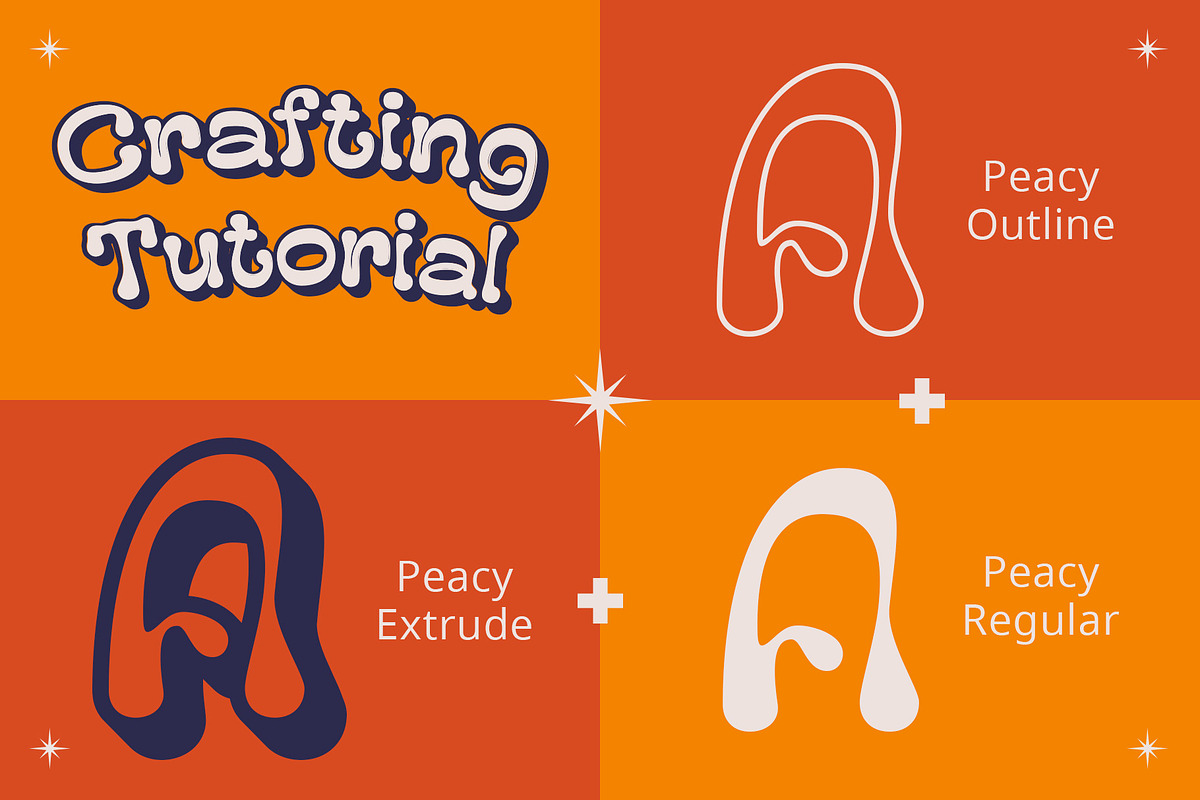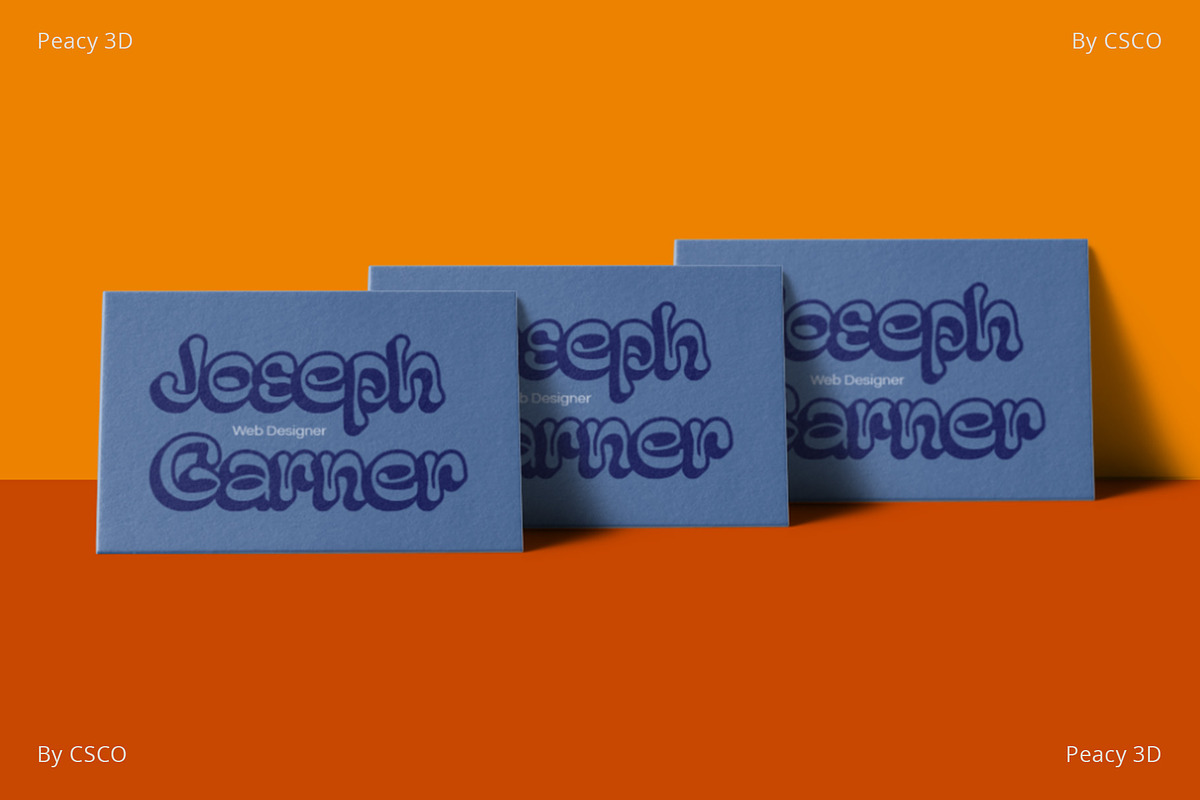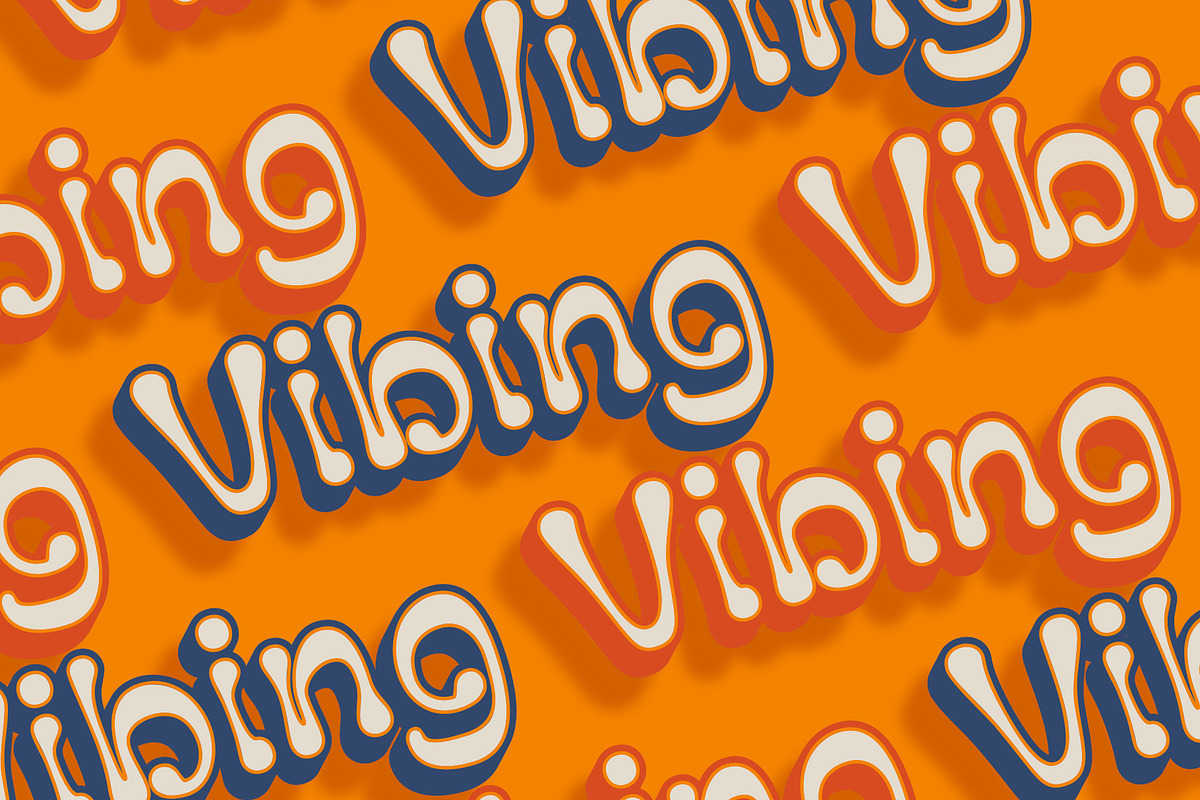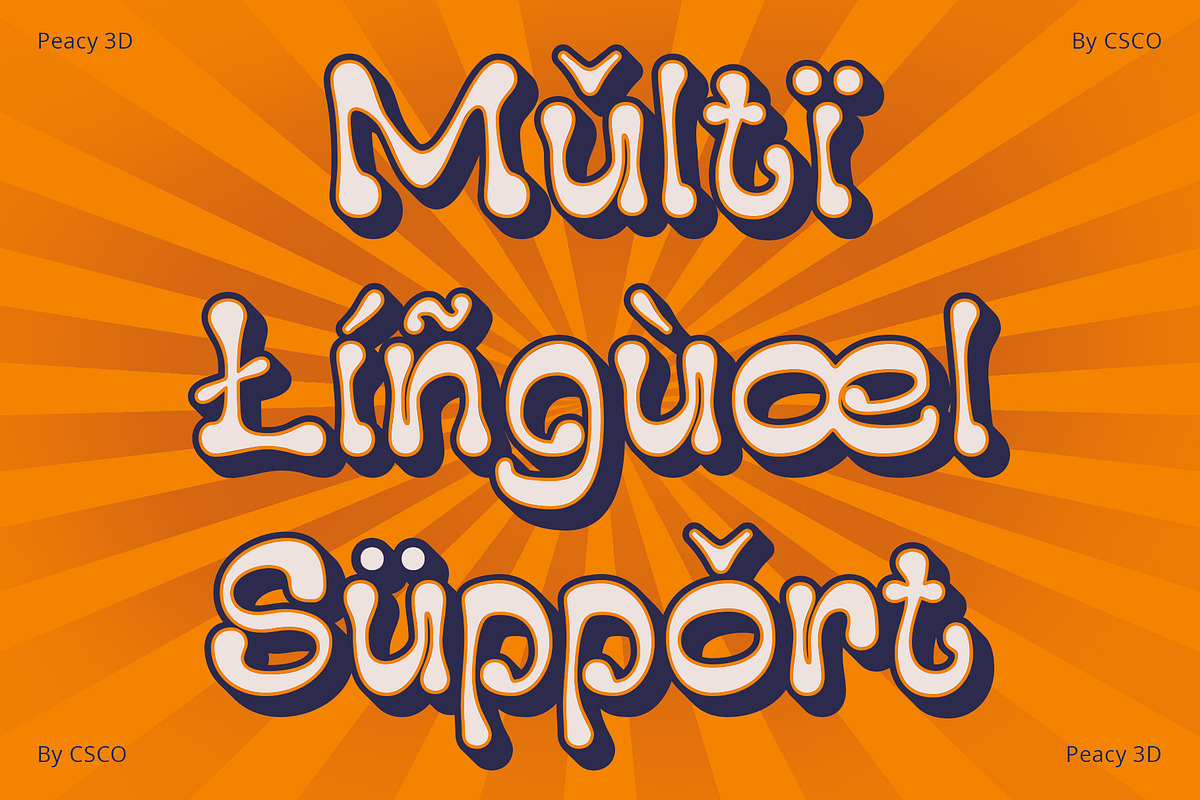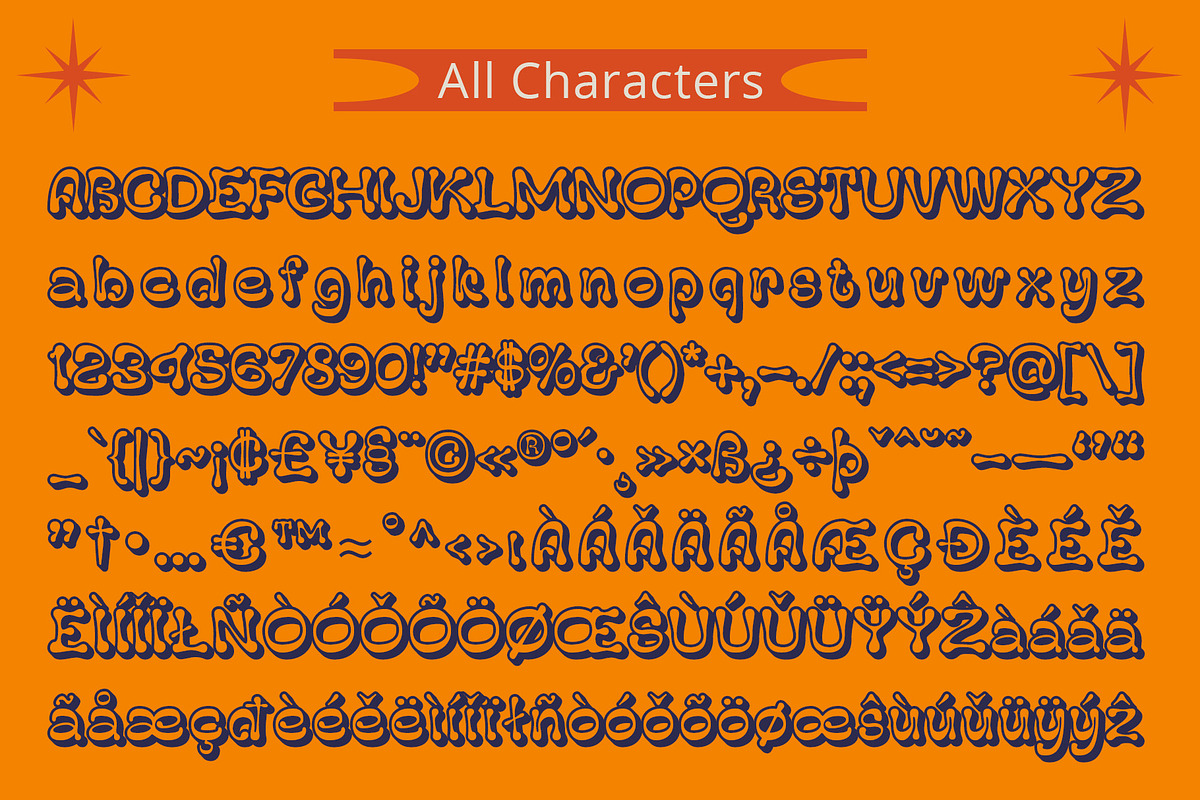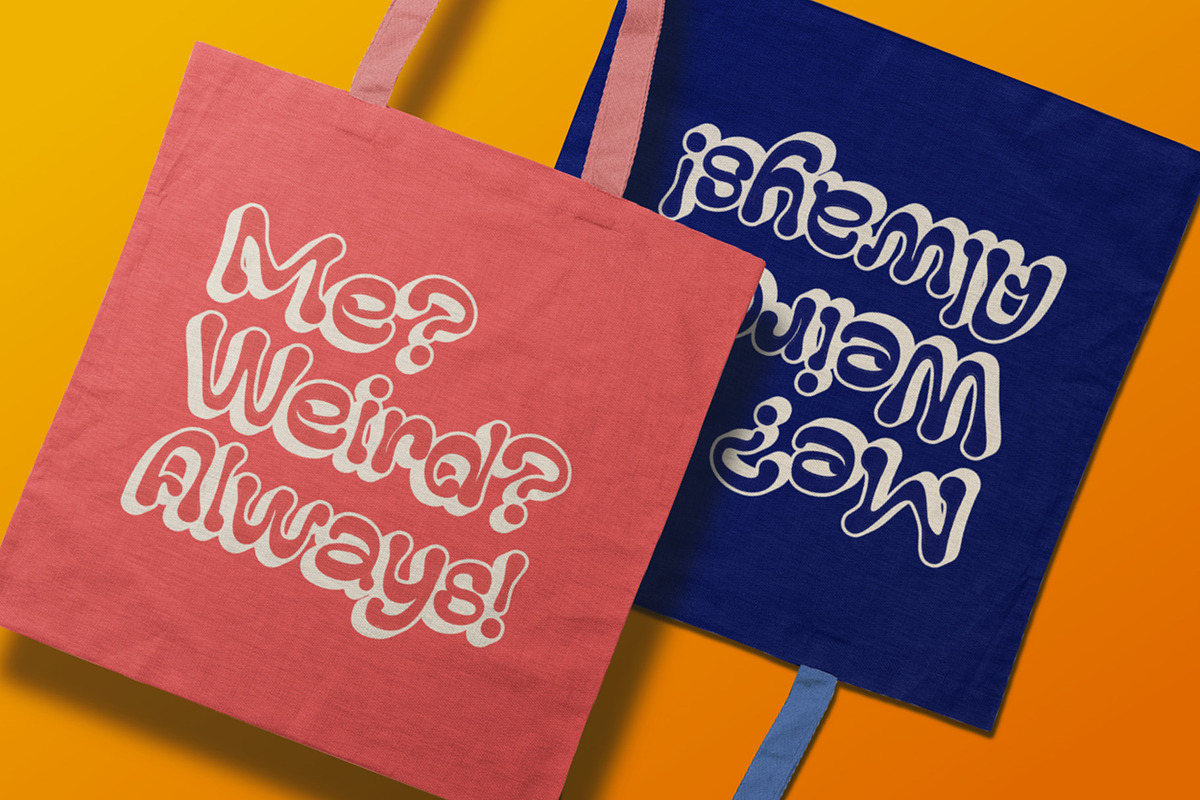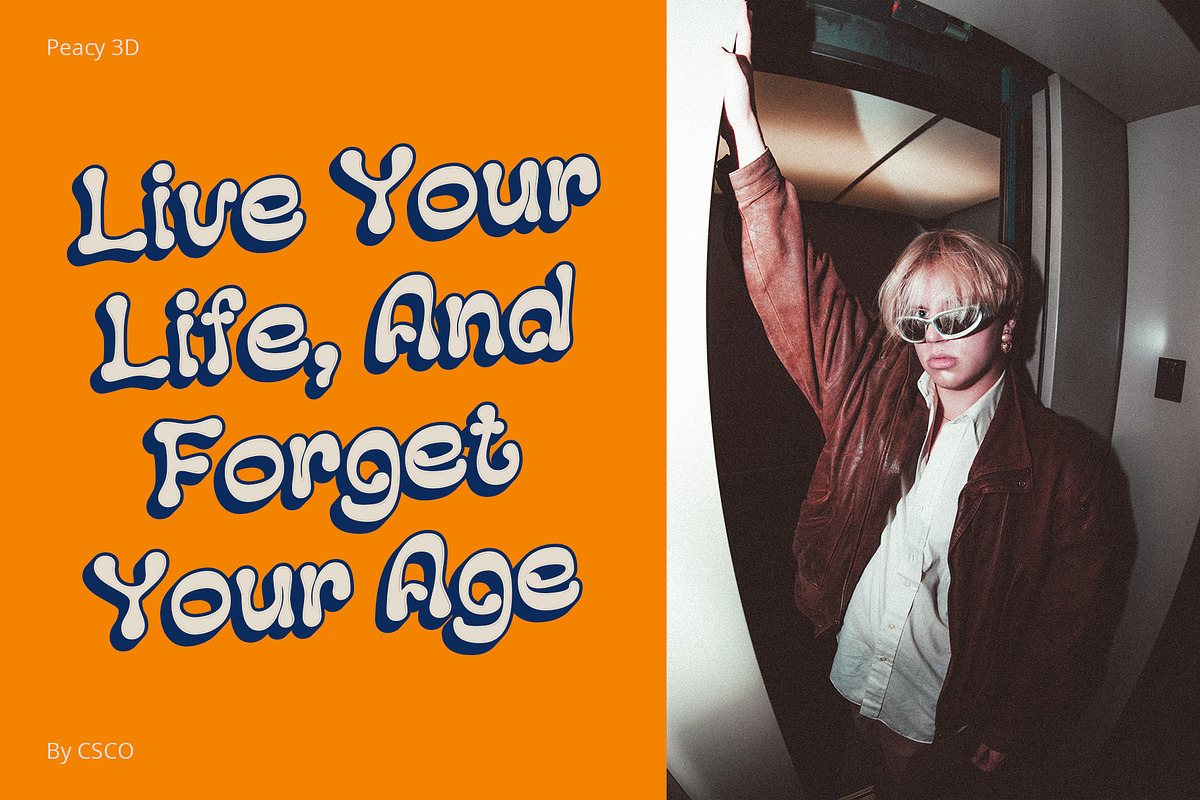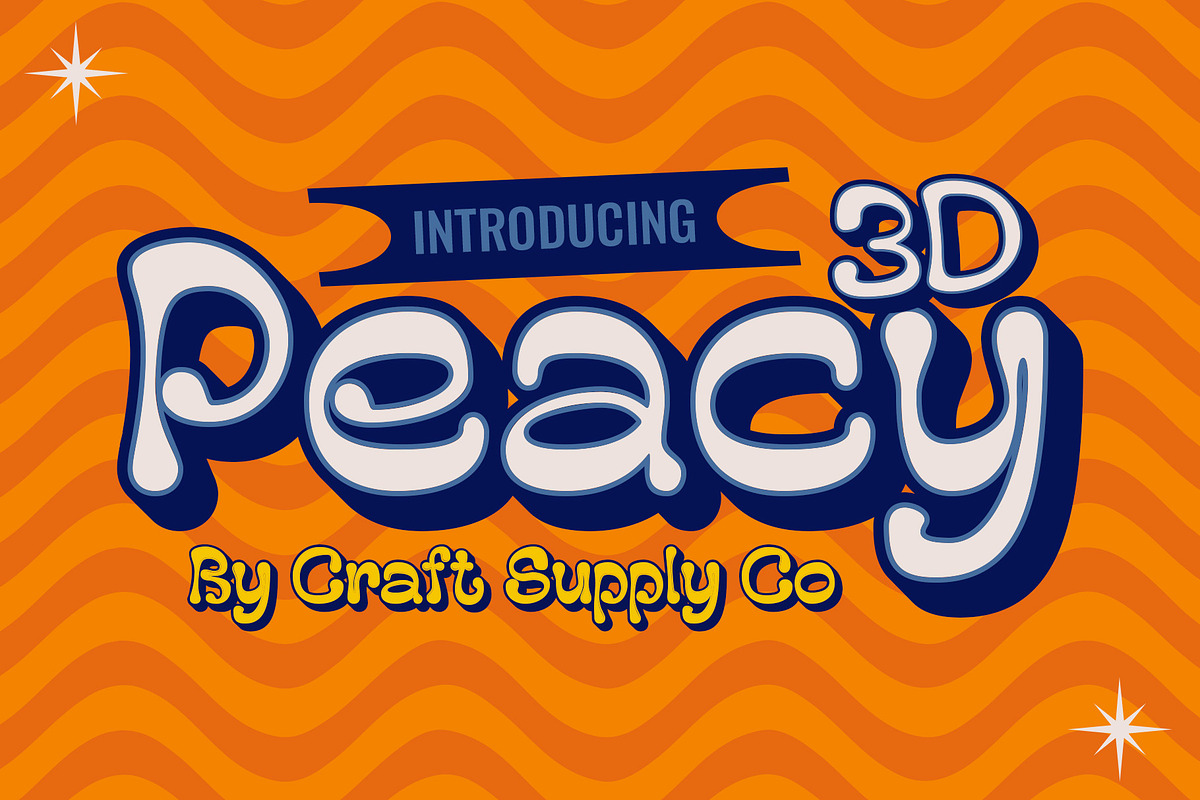
Peacy 3D
Peacy 3D: A Bubble of Dimensional Delight
Whimsical Inspiration Peacy 3D, a sans serif display font, draws inspiration from the ethereal beauty of clouds, bringing a whimsical touch to your display designs.
Dimensional Extravaganza The font takes a leap into the third dimension, incorporating an extrude effect that elevates each character, adding depth and visual intrigue.
Outline Elegance Peacy 3D doesn’t stop there—it comes adorned with a sleek outline that accentuates its bubbly forms, creating a perfect blend of elegance and playfulness.
Versatile and Vibrant This font is more than just a 3D spectacle; its versatility shines in various design contexts, injecting vibrancy into titles, headers, or any creative project seeking a touch of dimensional charm.
Conclusion Peacy 3D is more than just a font; it’s a journey into the clouds of creativity, where dimensionality meets playfulness. Elevate your designs with this bubbly, 3D masterpiece, and let your creativity soar.